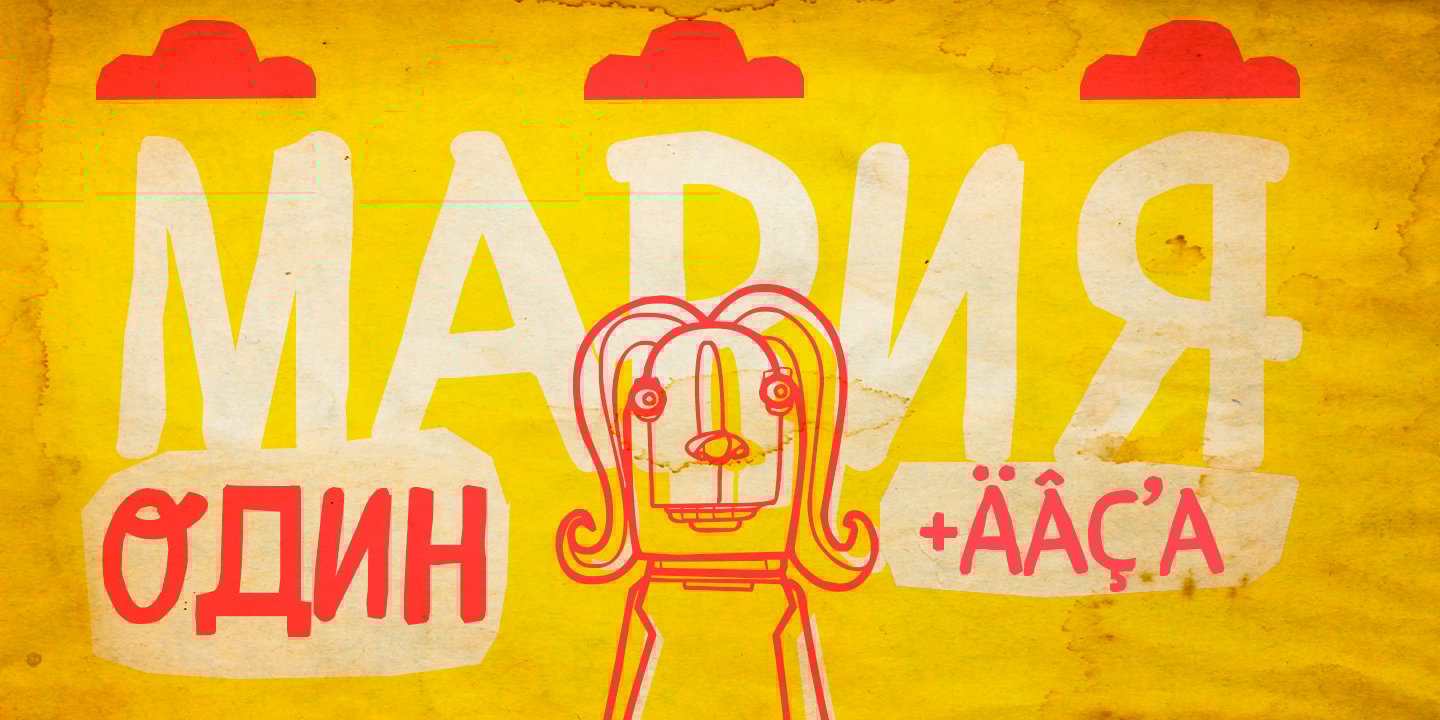
Children One Font is ideal for children's book illustrations, educational materials, playful toy packaging, kids' party invitations, daycare center branding, children's app interfaces, and family-friendly advertising campaigns. This delightful typeface captures the innocent joy and creativity of childhood for engaging design projects.
What makes Children One Font exciting is its playful, hand-drawn character that perfectly mimics children's natural writing style. The irregular letterforms and charming imperfections create authentic childlike appeal that instantly connects with young audiences while maintaining excellent readability for educational content.
Children One Font family includes multiple stylistic variations that enhance the handcrafted appearance, featuring contextual alternates and playful ligatures. These options prevent repetitive patterns while maintaining the spontaneous, creative energy that makes the font feel genuinely child-created rather than artificially designed.
The innocent charm and educational functionality of Children One Font Free Download make it essential for projects targeting children and families. Whether designing learning materials, entertainment content, or kid-focused branding, this versatile typeface delivers the warmth and approachability that resonates with young minds. Its authentic childlike character ensures your designs feel inviting and age-appropriate while supporting clear communication and learning objectives.